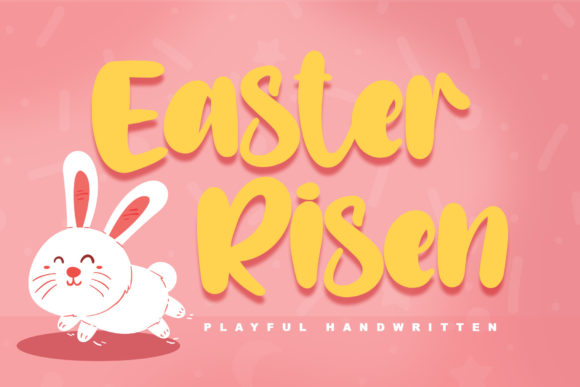
Welcome to the world of Easter Risen Font, a delightful dance of ink that captures the carefree essence of spring's embrace. This charming script font, meticulously crafted by thomasaradea, is a visual harmony that dances playfully on the page, mimicking the joy of twirling leaves and blooming flowers. With its graceful curves, Easter Risen captivates the imagination like a dancing fairy, whispering tales of love and new beginnings.
Let your creativity bloom with Easter Risen, a font that paints a picture of happiness in every letter. Each delicate stroke, each sweeping line holds the promise of joy, transforming your designs into vibrant expressions of life. Its magical touch adds a touch of whimsy to your logos, invites warmth into your branding, and transforms your Easter cards and invitations into cherished keepsakes.
Dive into the Easter Risen experience and let your imagination take flight. Its versatility knows no bounds, seamlessly adapting to any creative endeavor, from playful posters to enchanting social media graphics. Unleash the power of Easter Risen and watch as your designs blossom into a symphony of visual delight.